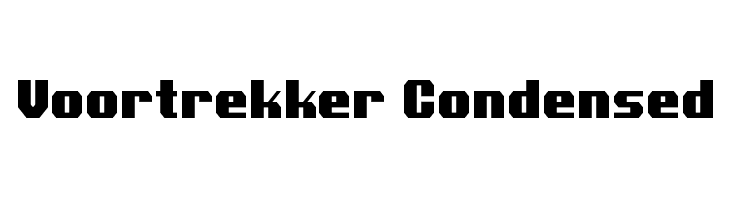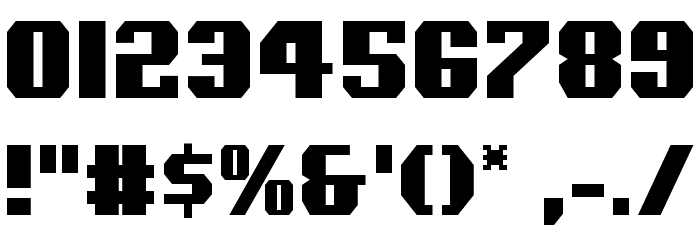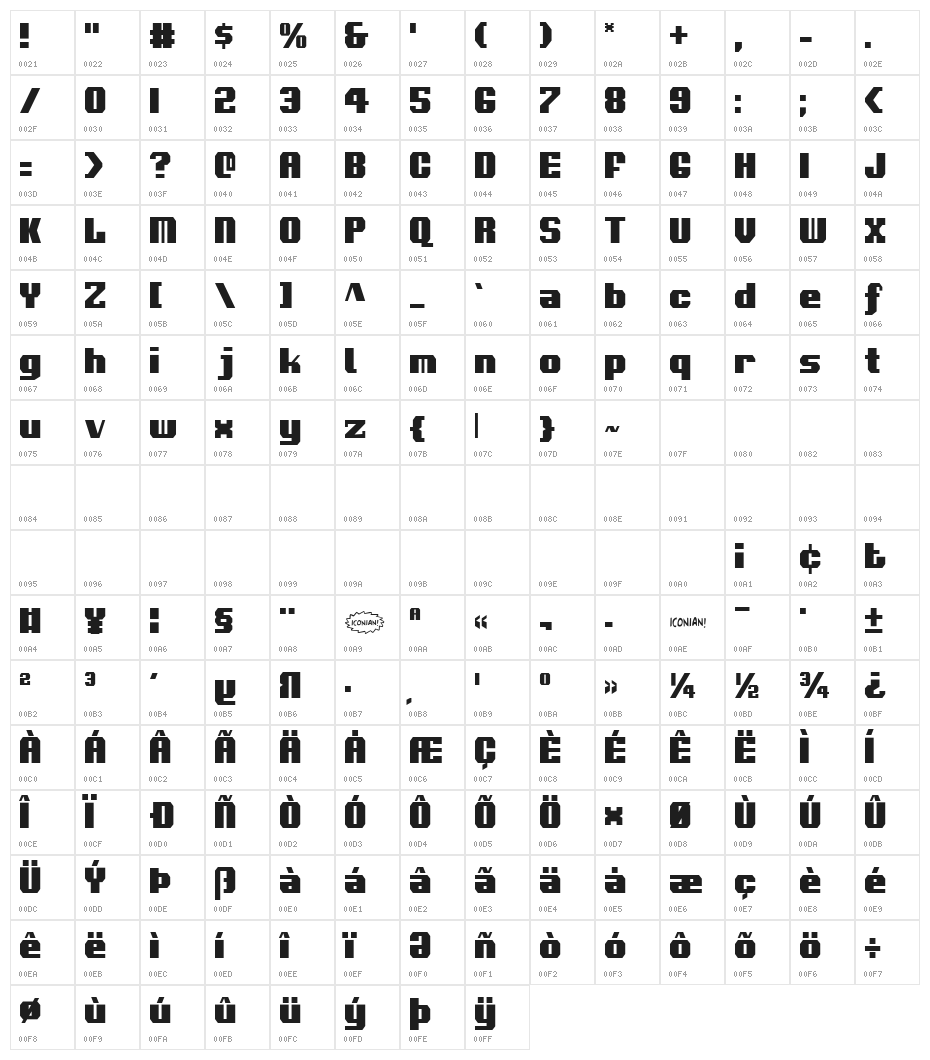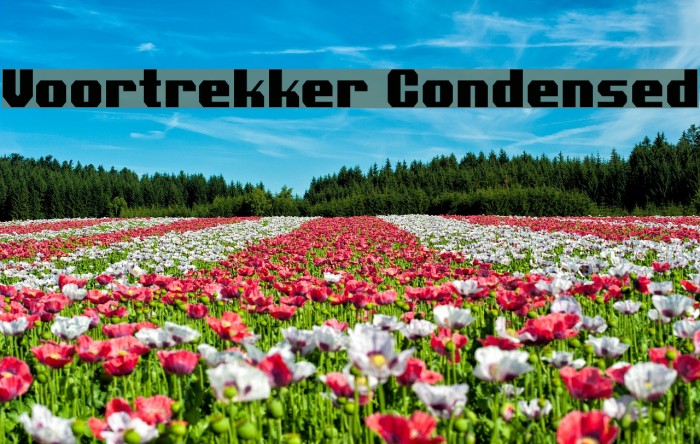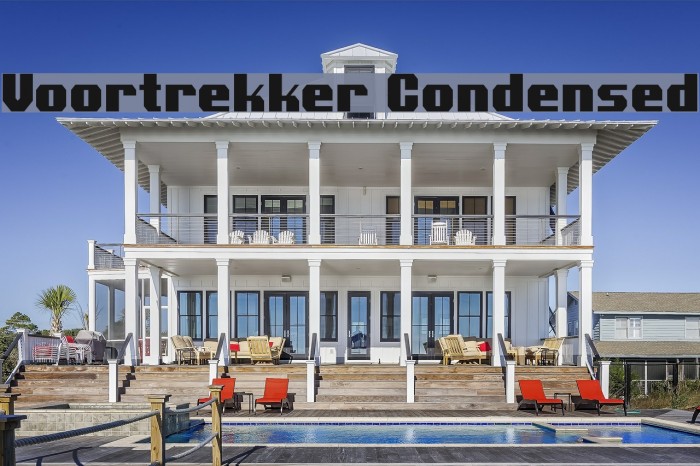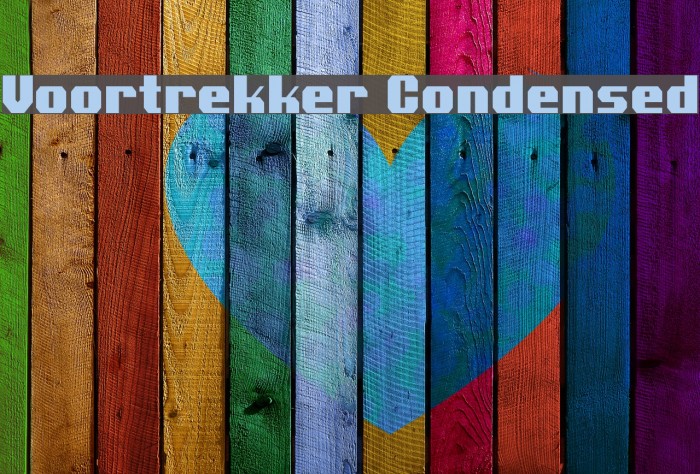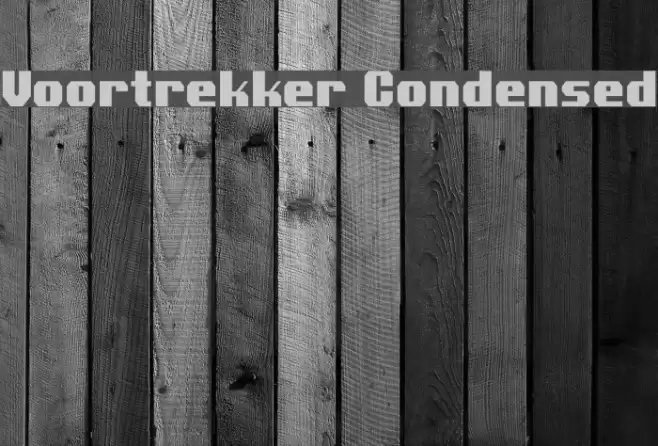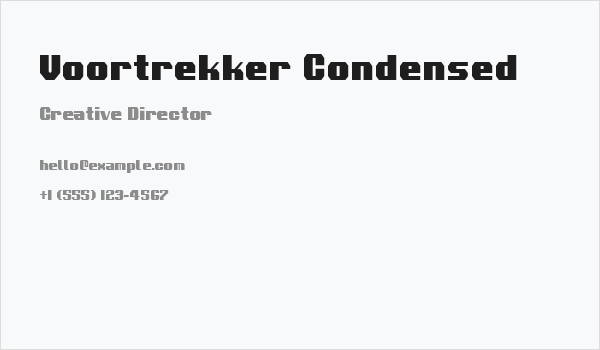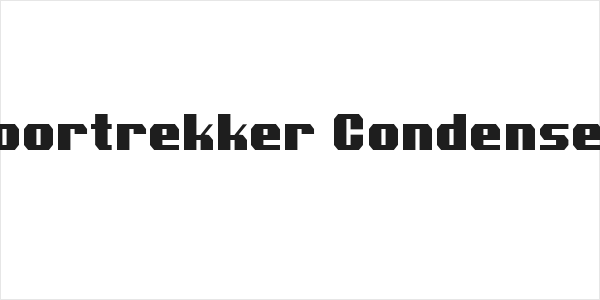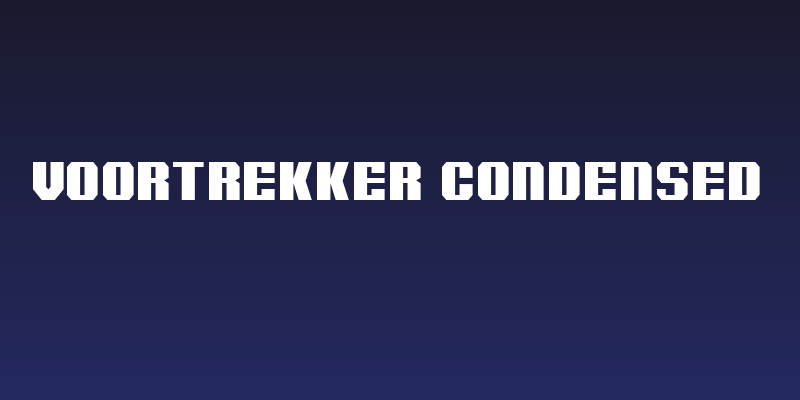
Voortrekker Condensed Font
Voortrekker Condensed Description
This font features a bold and condensed style with a strong geometric structure. The characters are blocky and angular, giving it a robust and industrial appearance. The uppercase and lowercase letters maintain a consistent width, contributing to its compact and uniform look. The numbers and special characters follow the same design principles, ensuring a cohesive visual identity across all glyphs. The font's distinctiveness lies in its sharp edges and minimal curves, making it stand out in any design project.